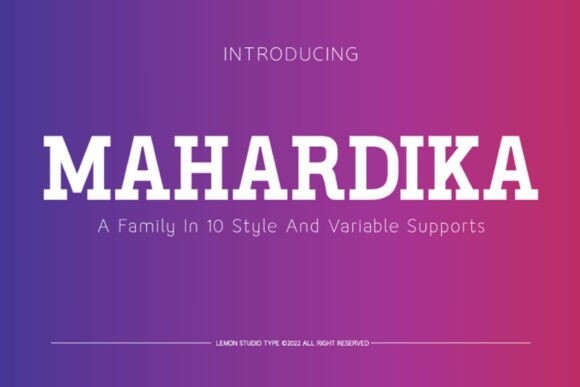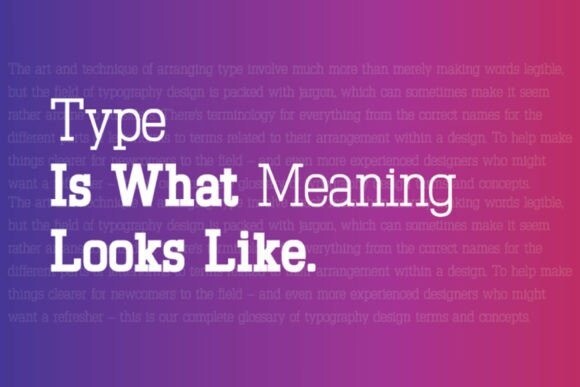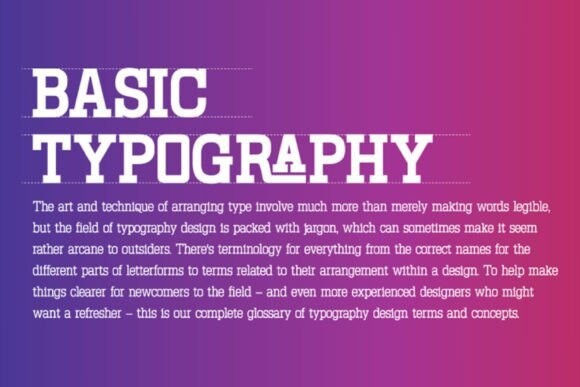
Mahardika Font
Mahardika is a sleek and captivating display font. Drawing inspiration from the neon lights of the city, this modern and attractive font is perfect for designs that demand an edgy and eye-catching look. With various weights and styles available, ‘Mahardika’ is a versatile option guaranteed to make your project stand out.